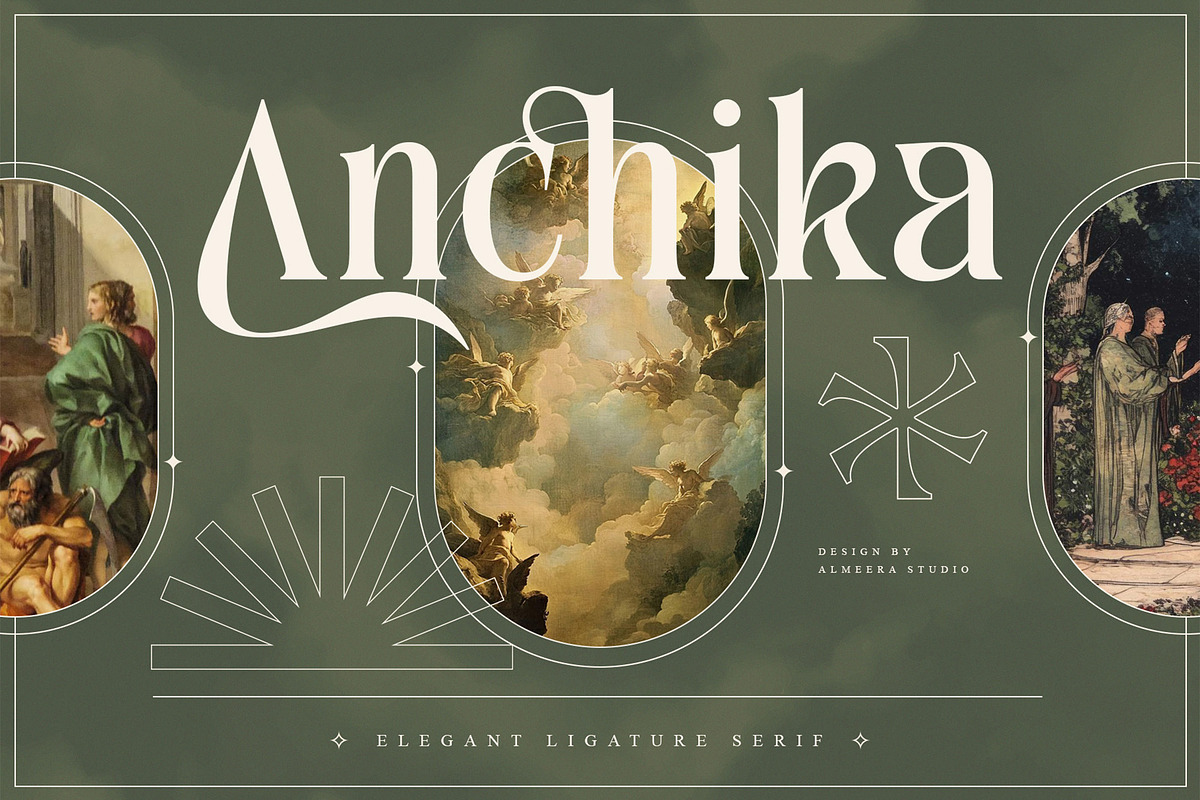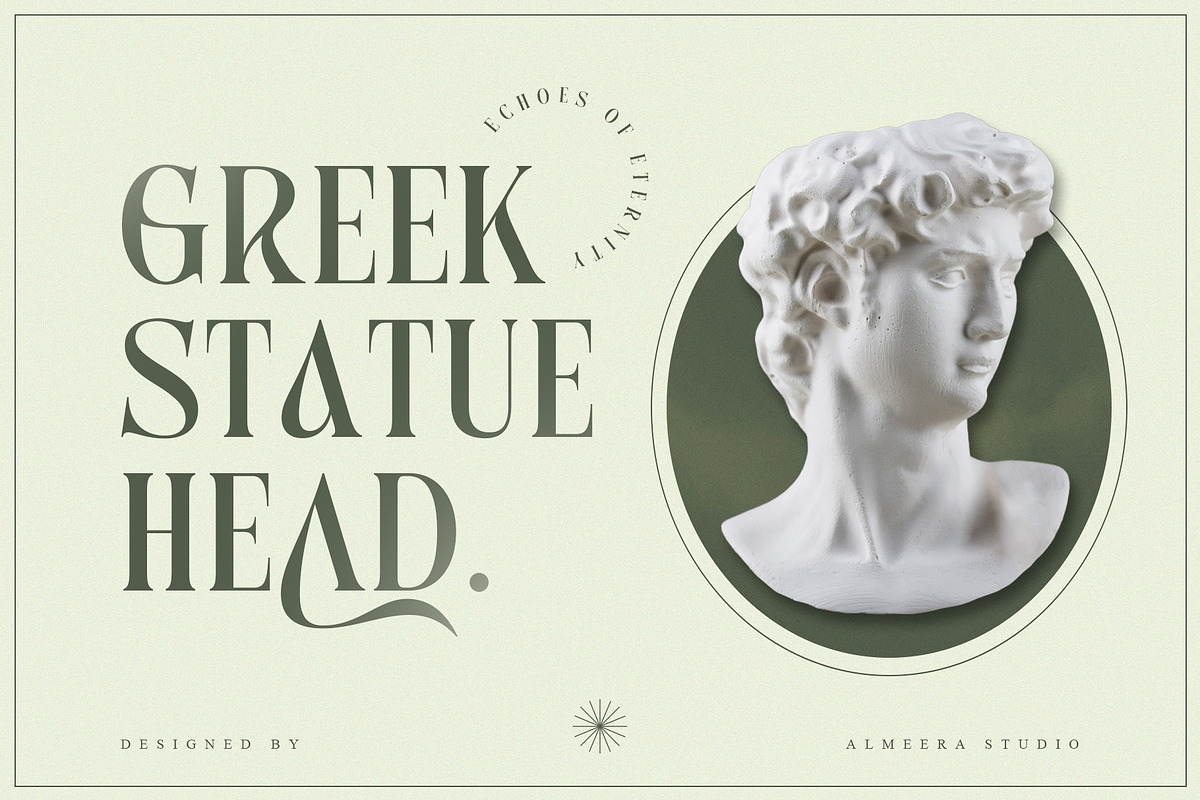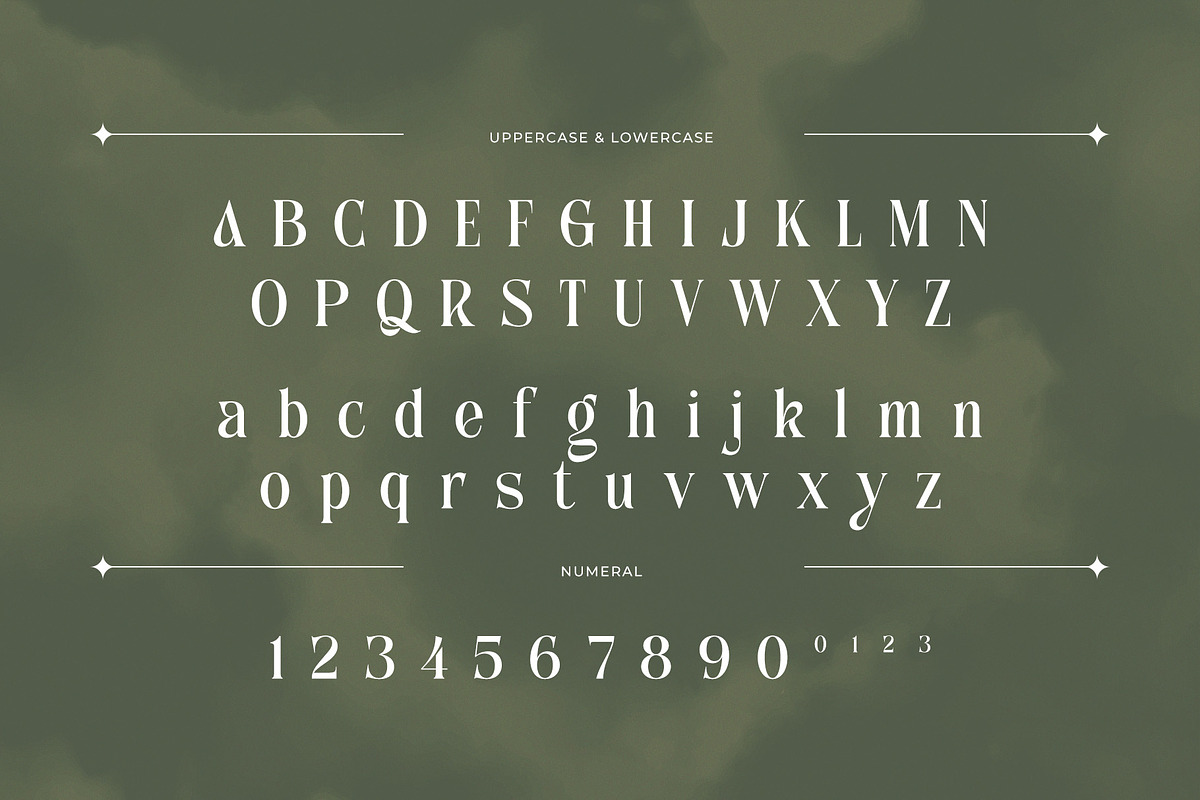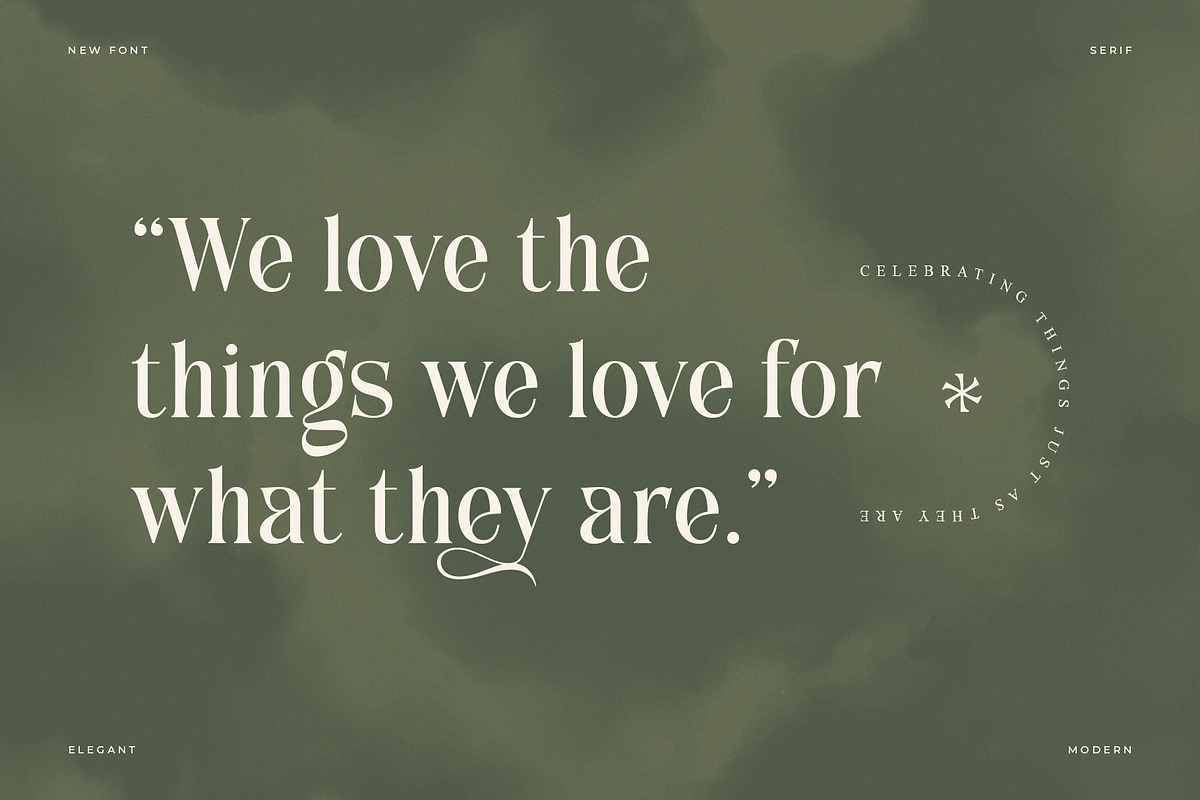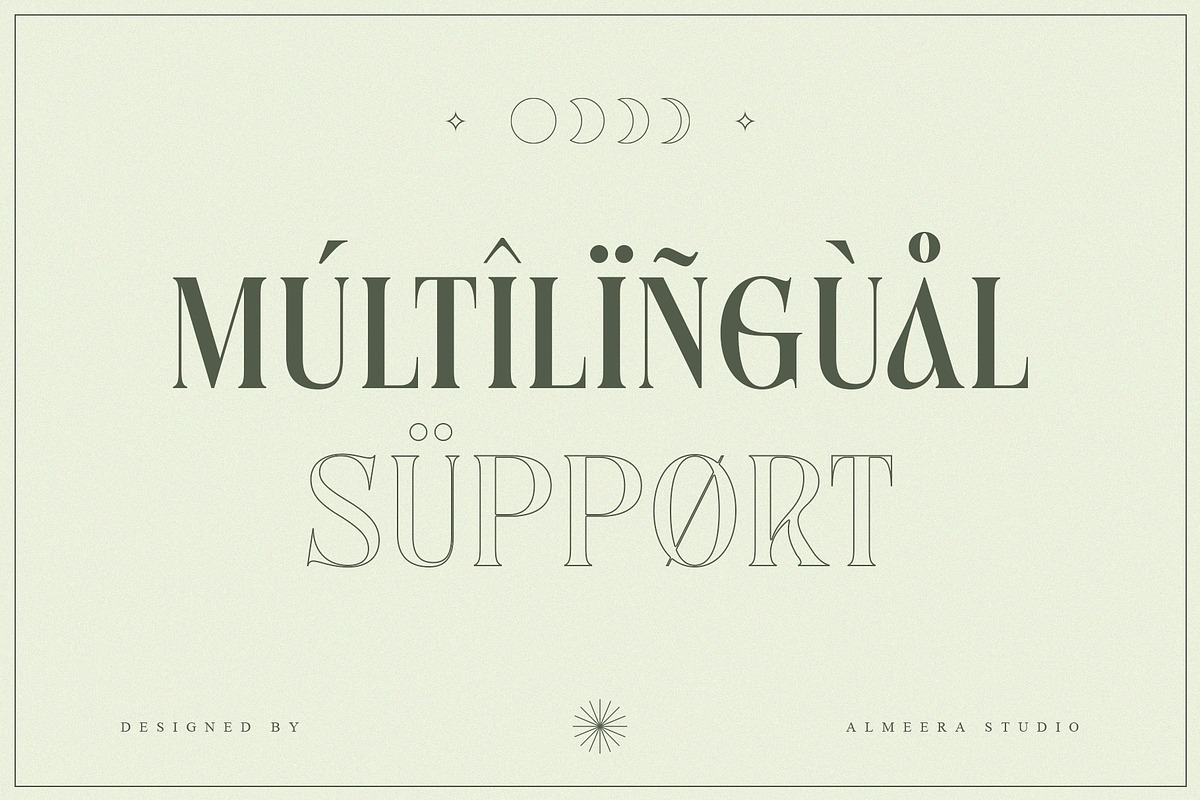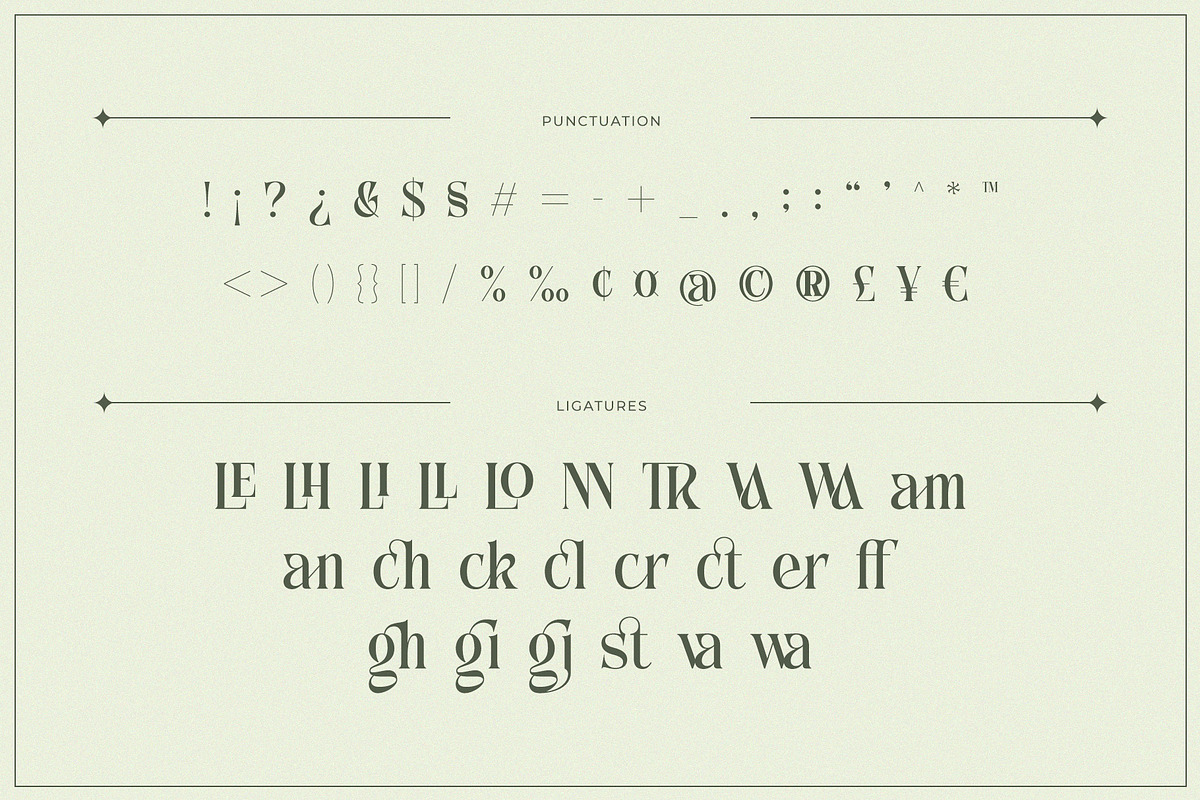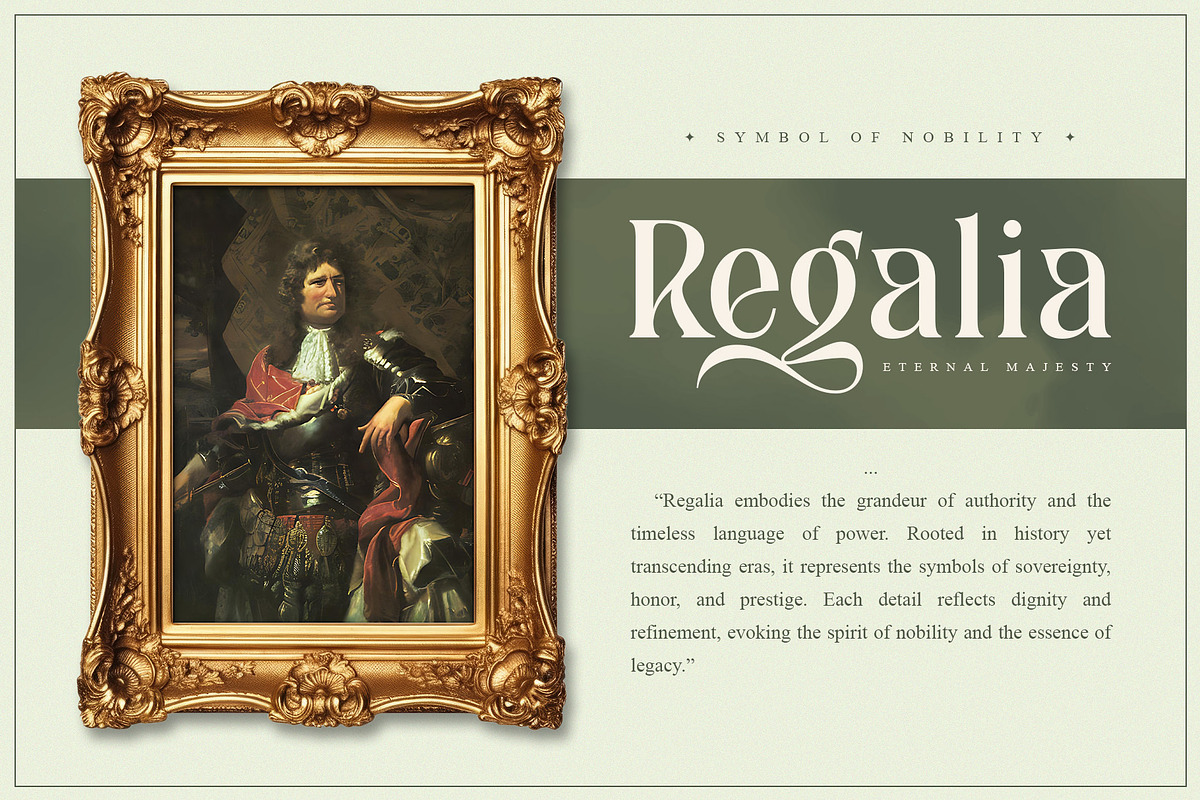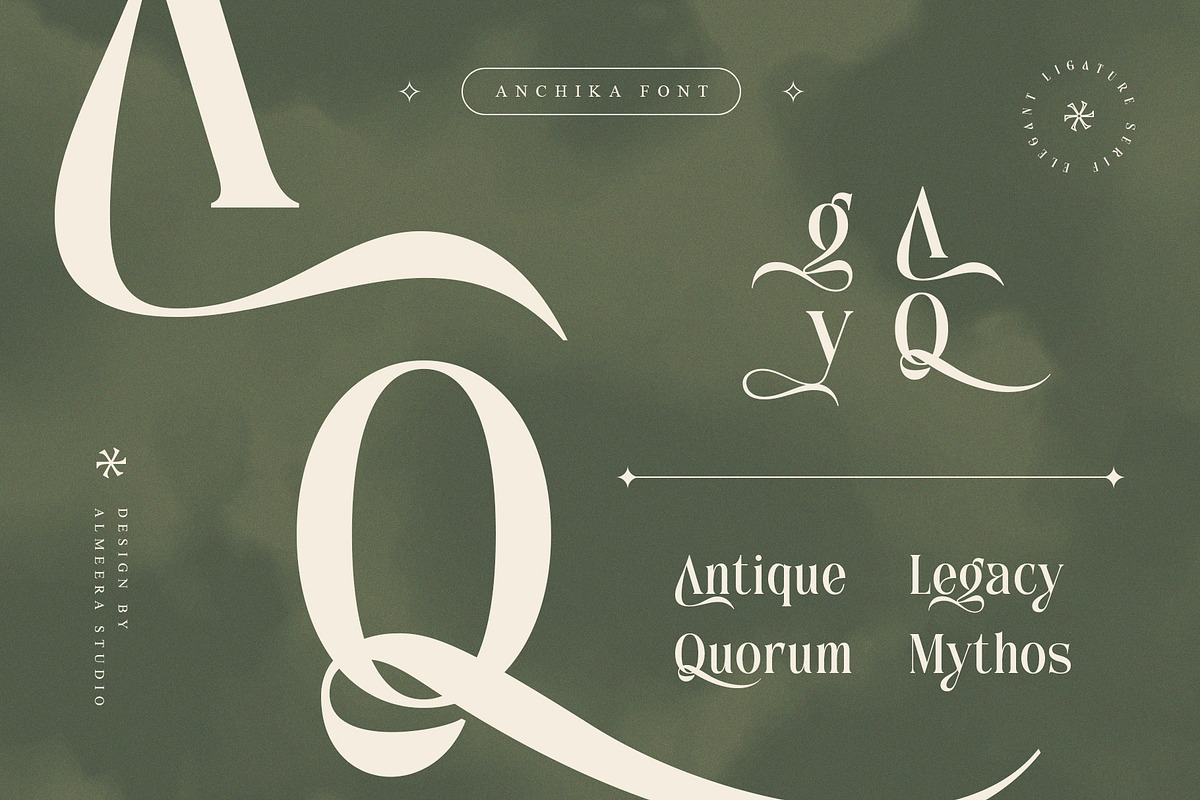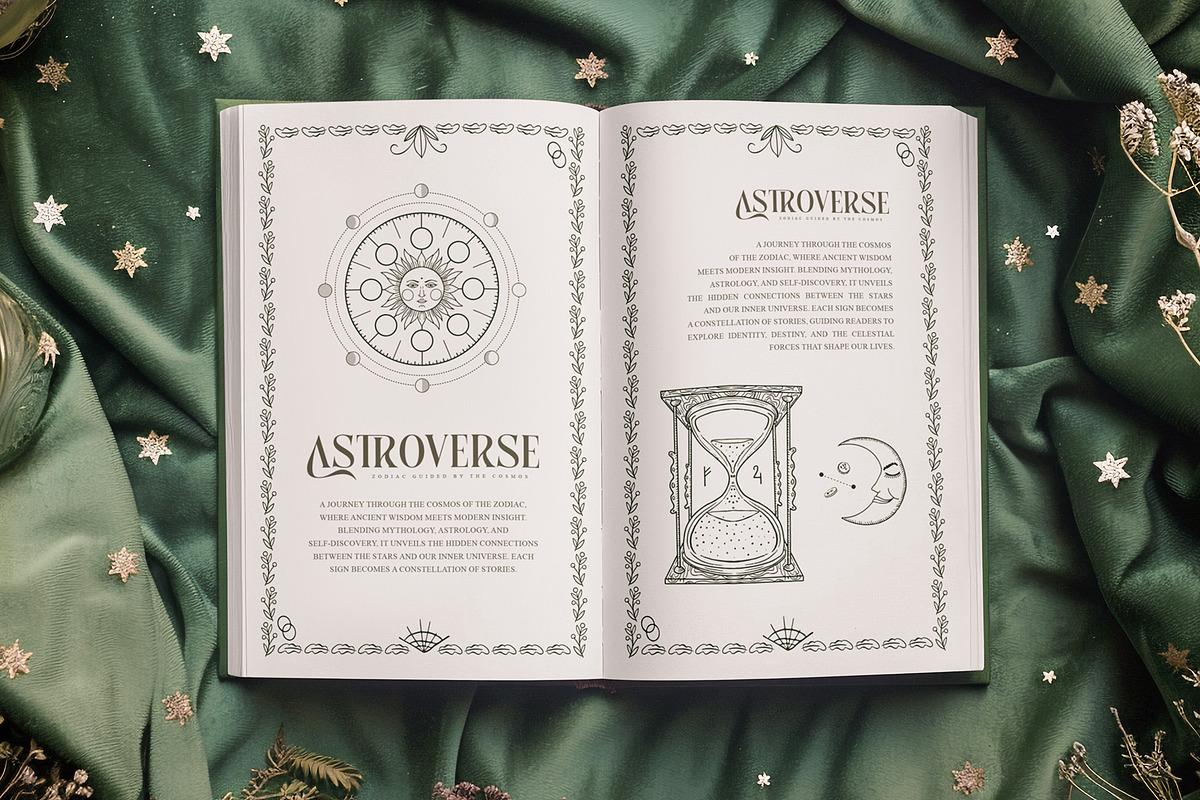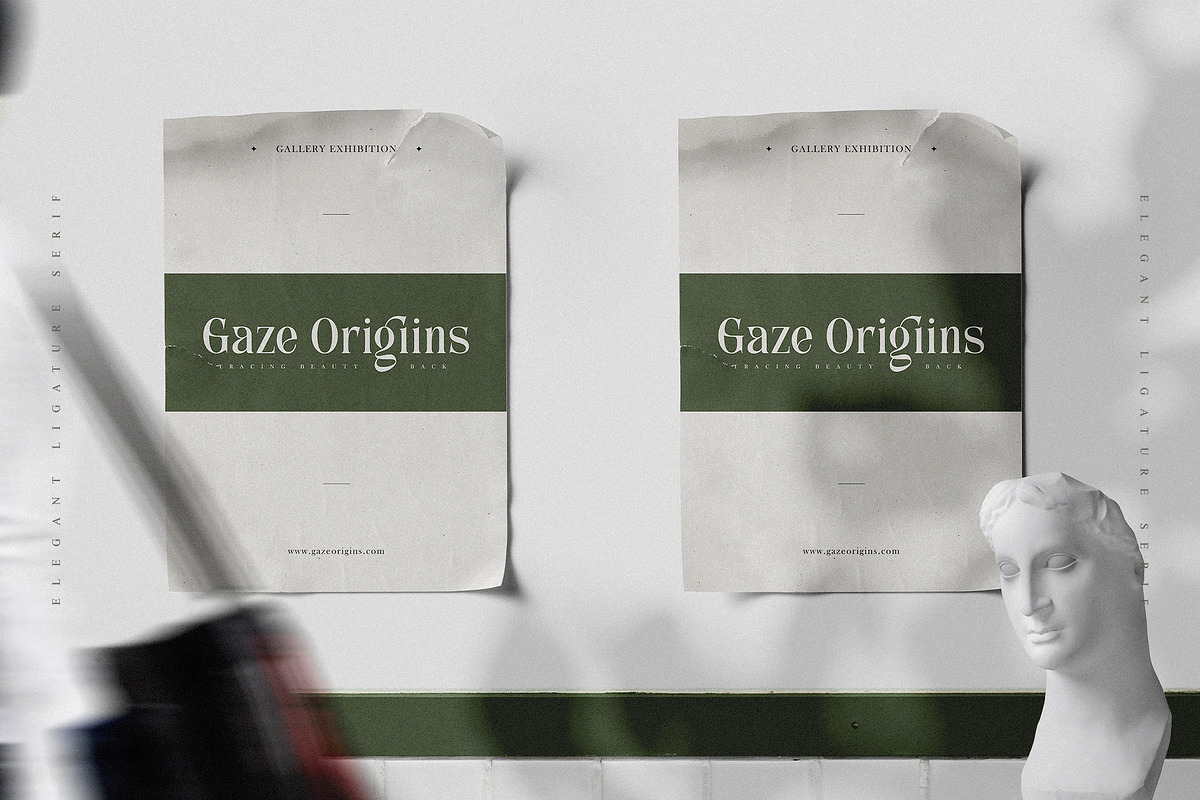
Anchika – Elegant Ligature Serif
Bring timeless elegance to your design projects with Anchika, an elegant ligature serif font crafted for sophistication and style. Anchika combines modern refinement with a touch of vintage charm, making it perfect for high-end branding, editorial layouts, fashion projects, and luxury packaging.
With its carefully designed ligatures and graceful letterforms, Anchika delivers a classy yet contemporary aesthetic. This typeface is not only versatile but also highly functional, providing multilingual support and PUA encoding for seamless use in any design software.
- Beautiful ligatures & stylistic alternates
- Elegant serif details for timeless look
- Perfect for logos, branding & editorial design
- Multilingual support (Western European characters)